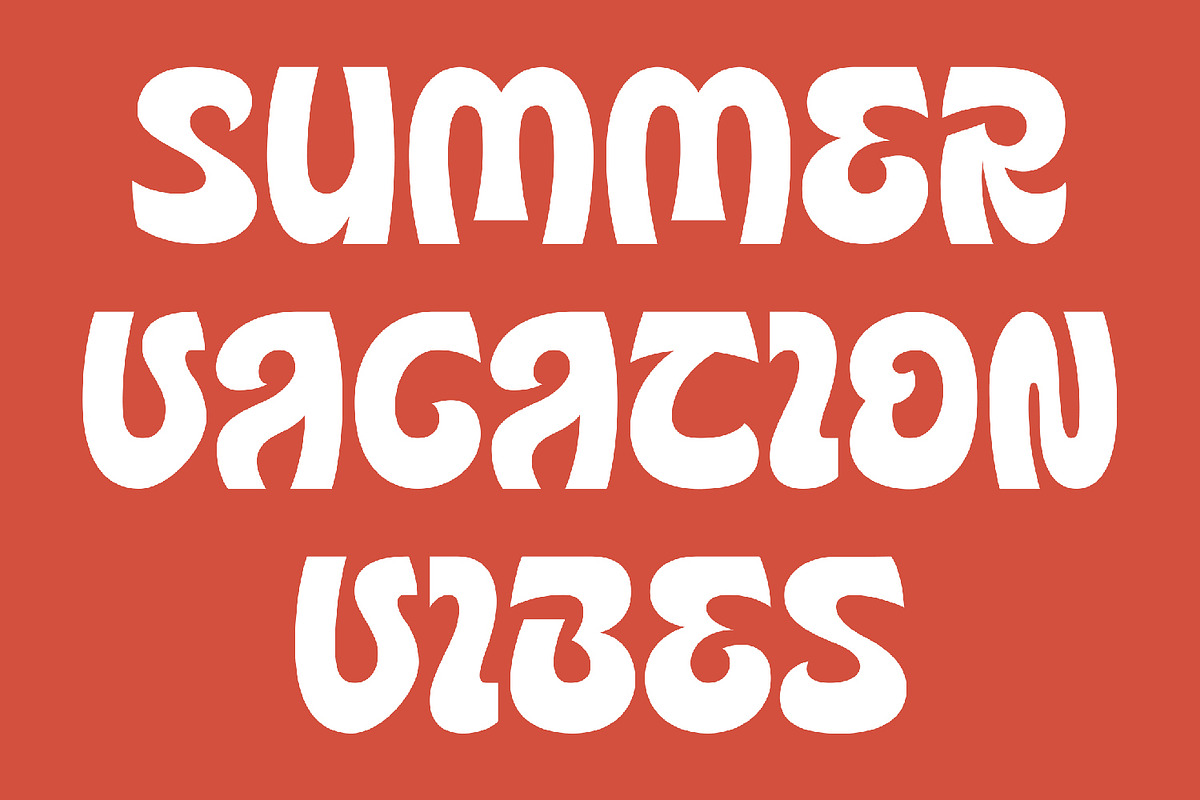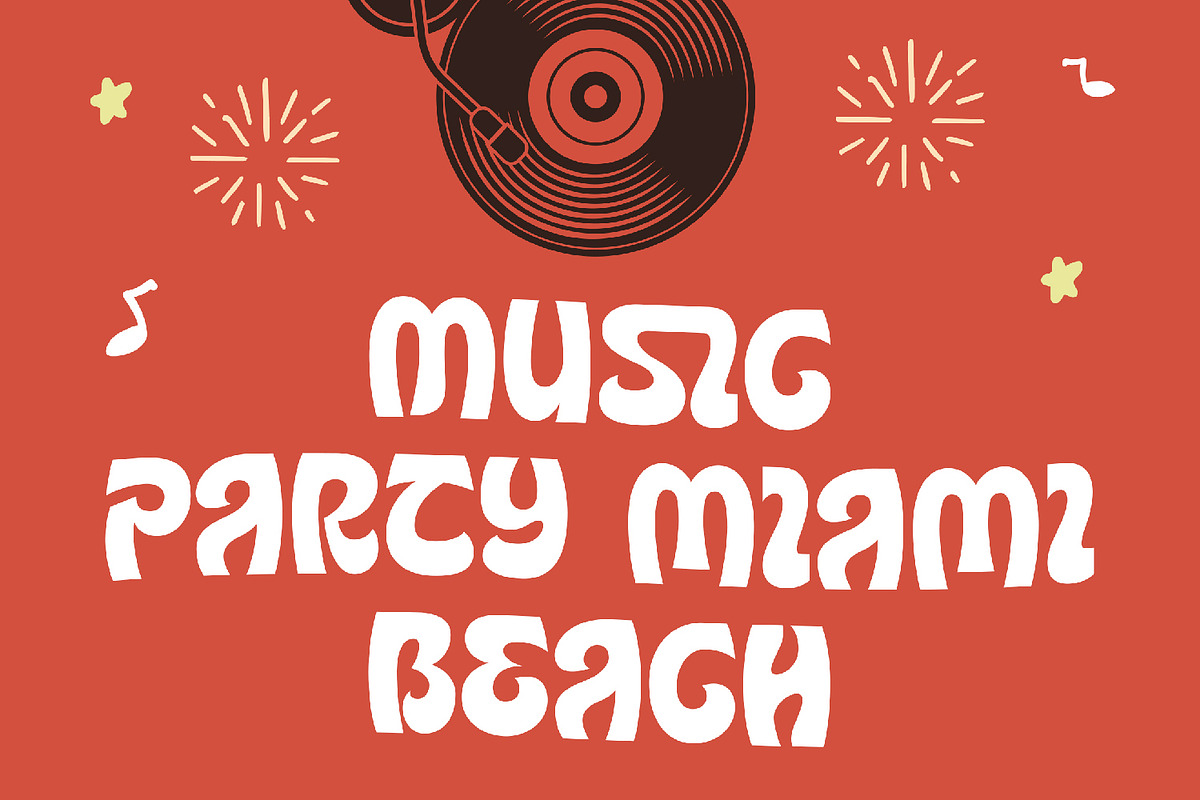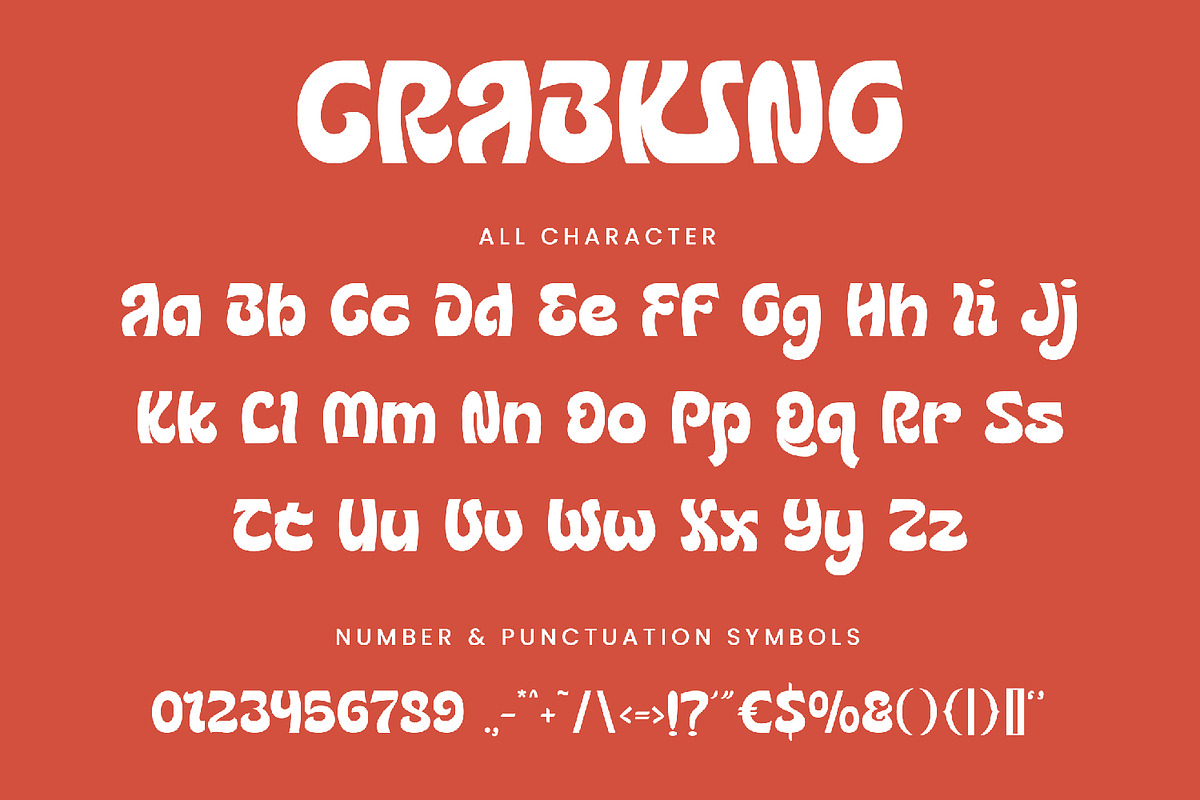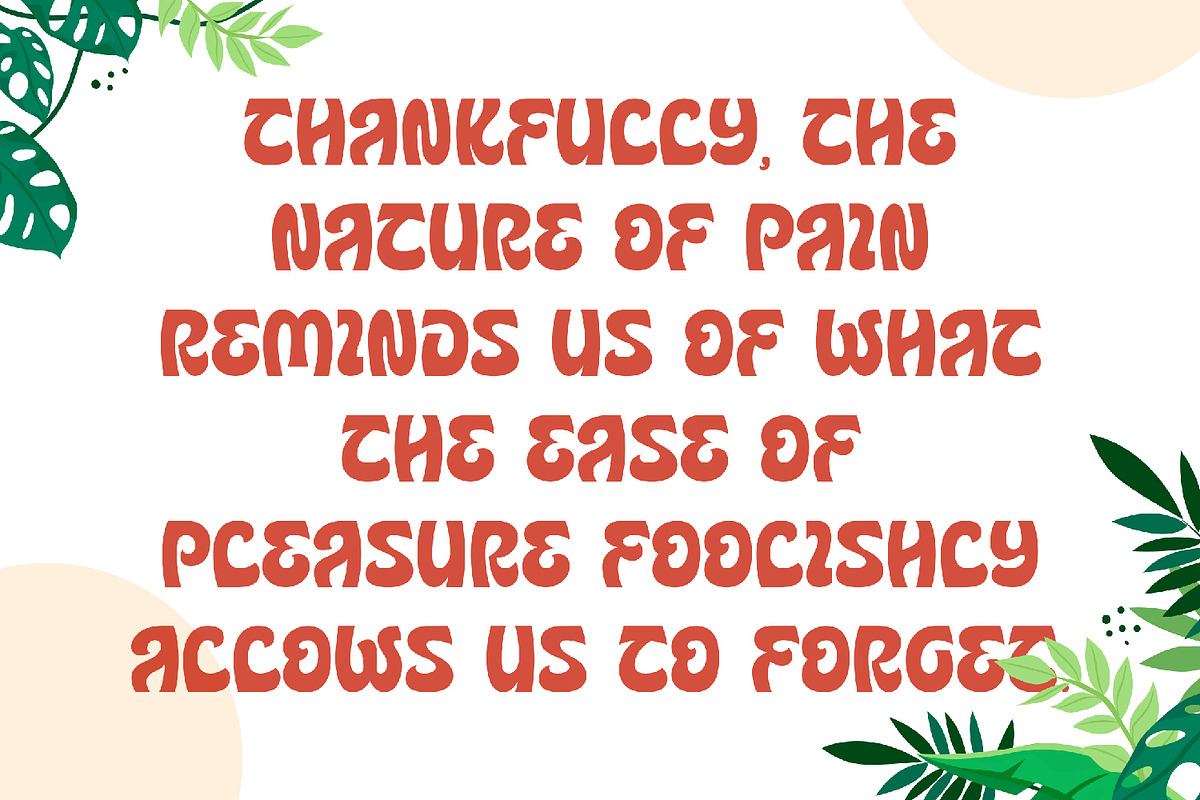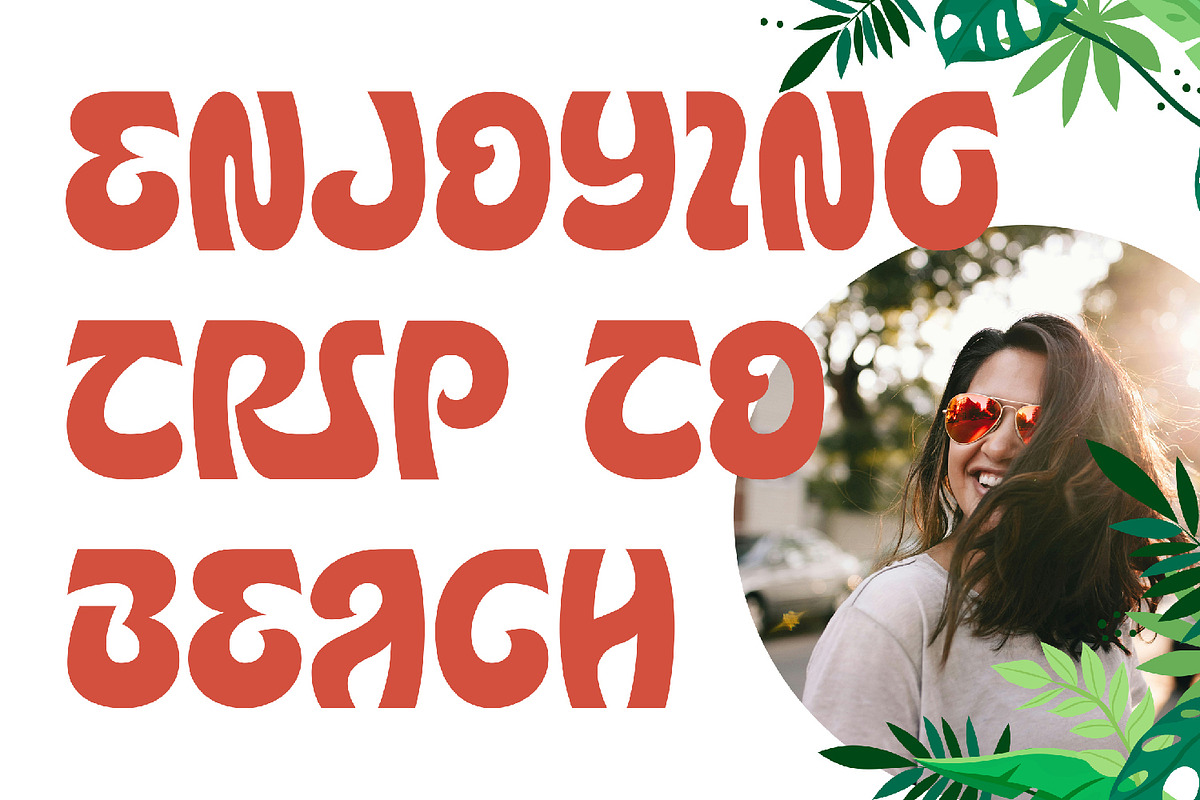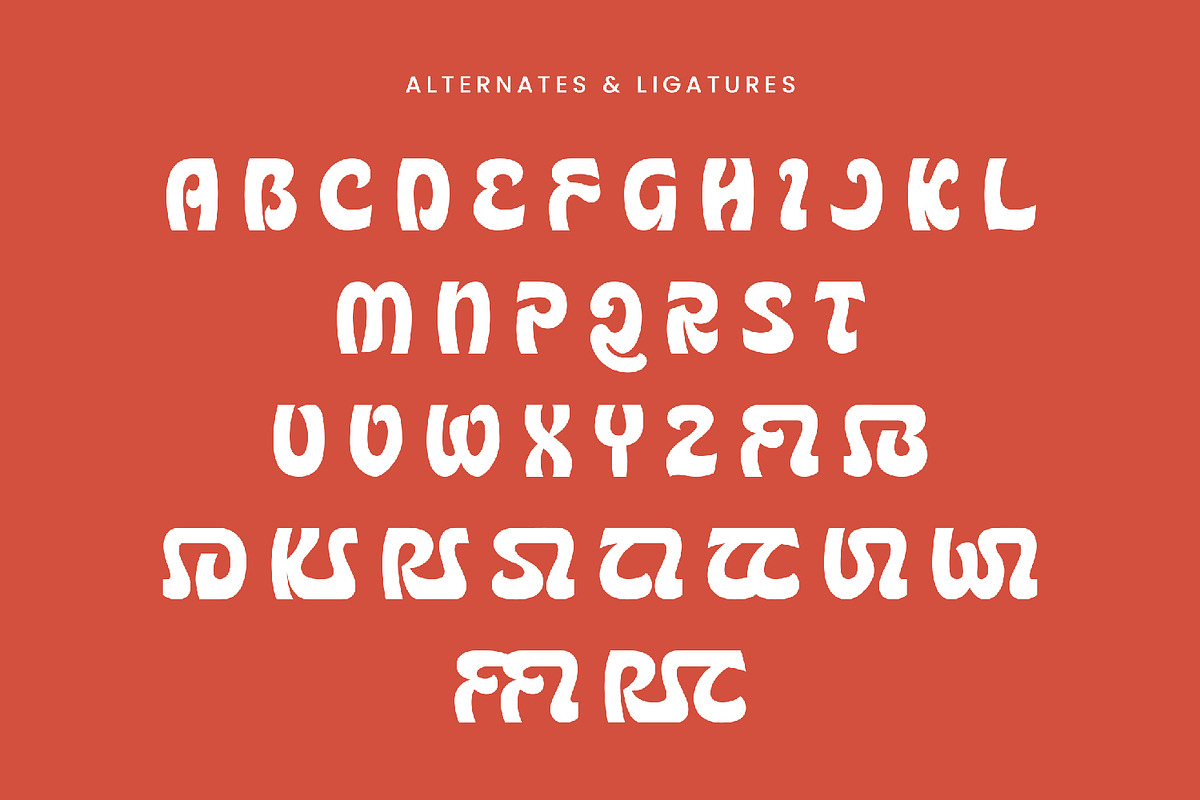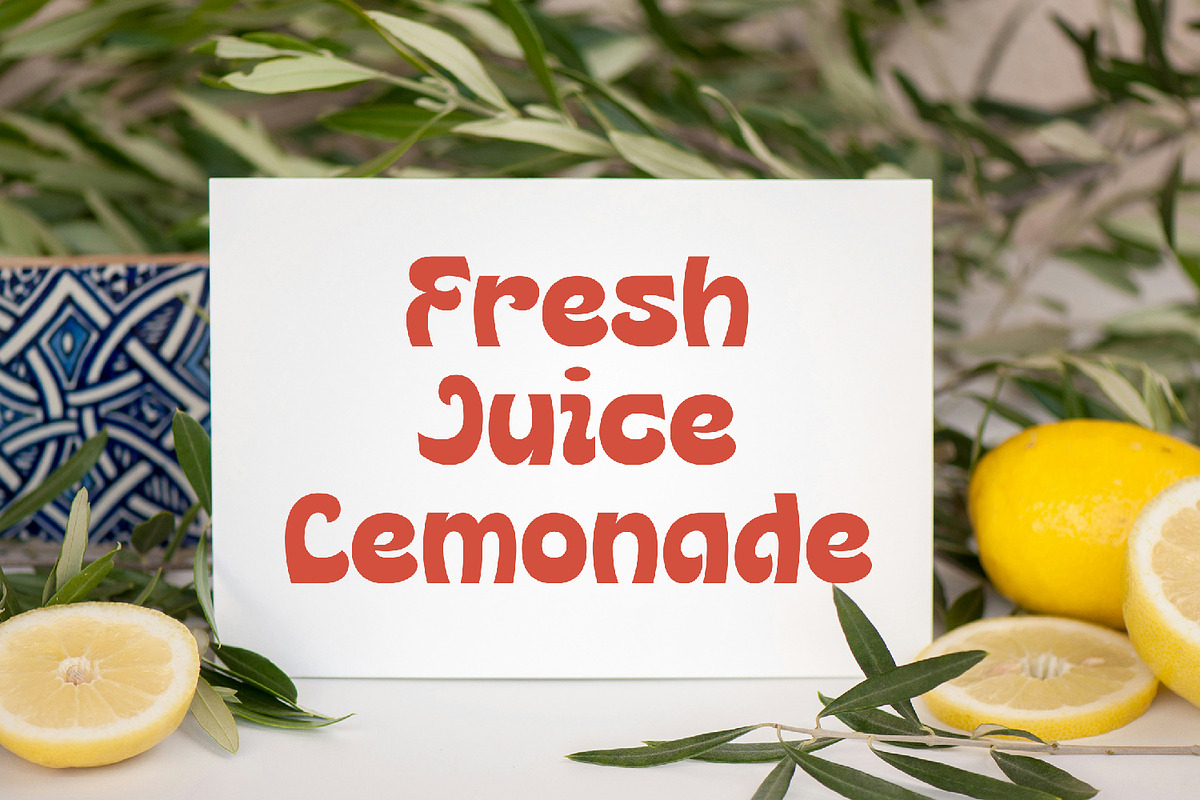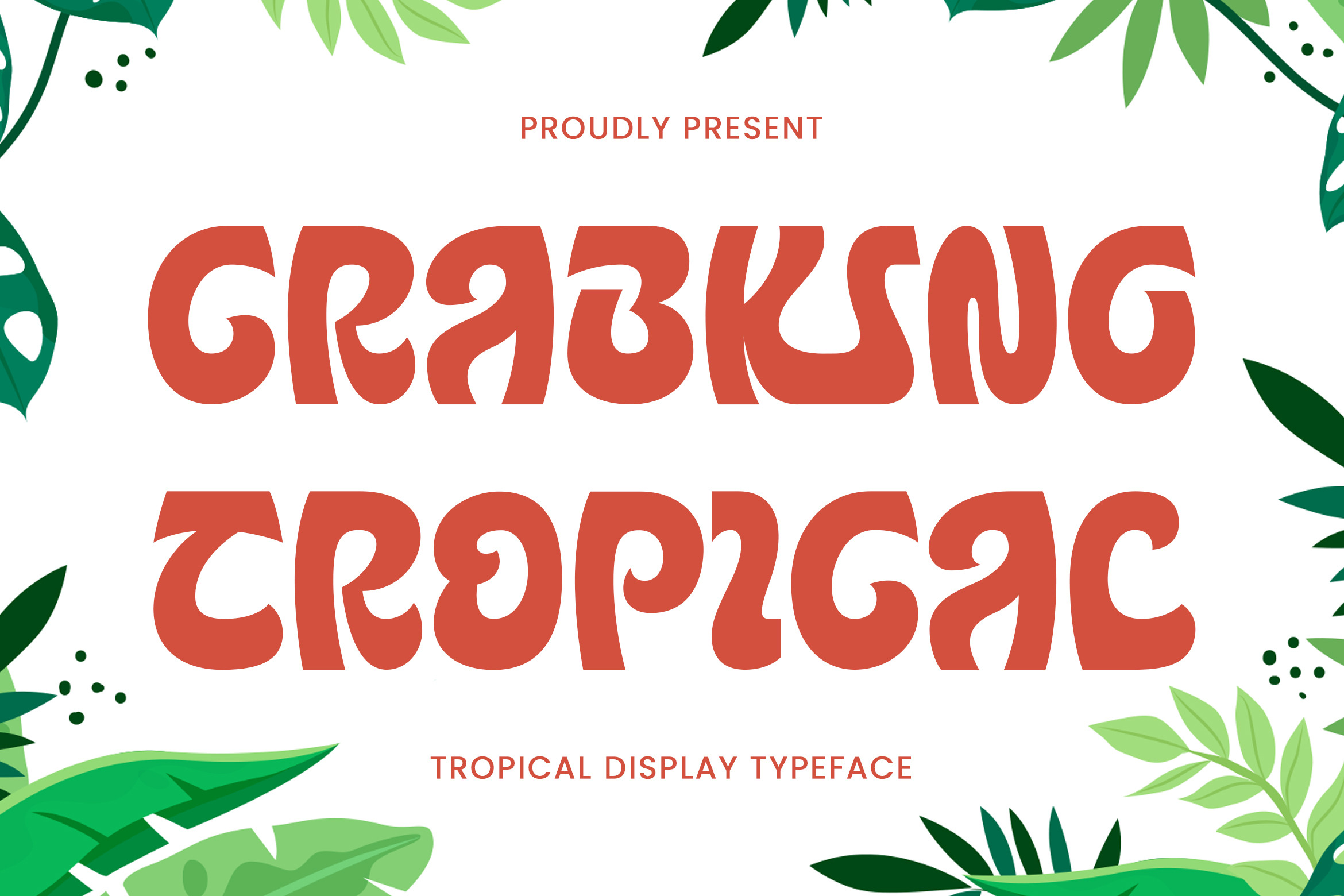
Crabking - Tropical Display Font
Crabking - Tropical Display Font contains a lowercase, uppercase, symbol, and also supports multi-language. There’s a lot of ligature in this font. Crabking - Tropical Display Font also comes with ligatures, stylistic alternates and many more. this font suitable for fashion, branding, catalog and other design that you want.